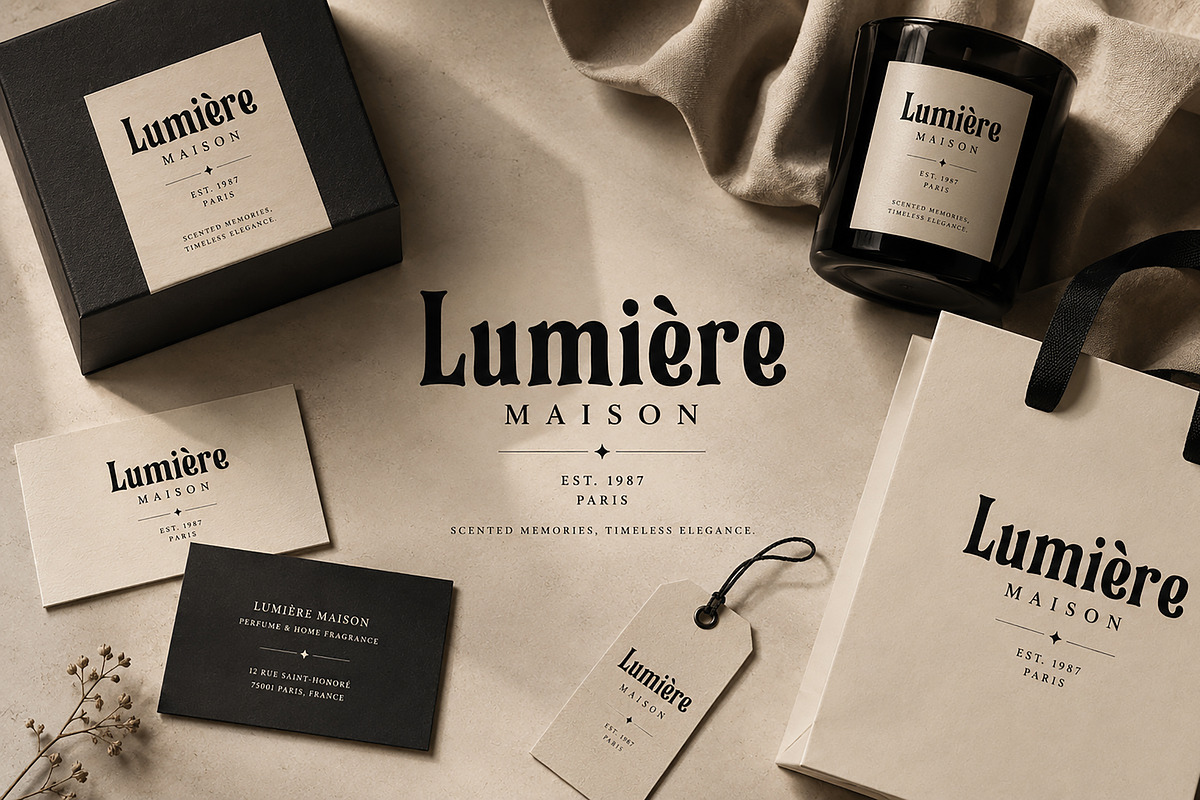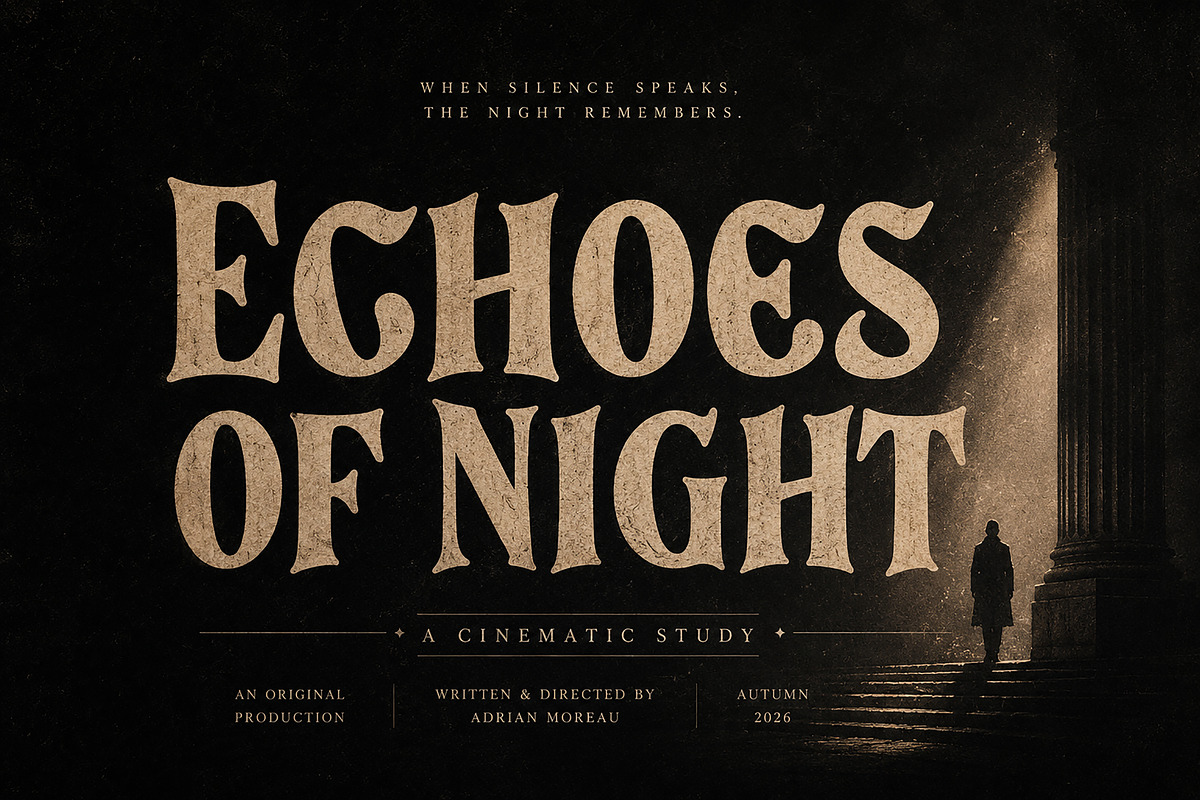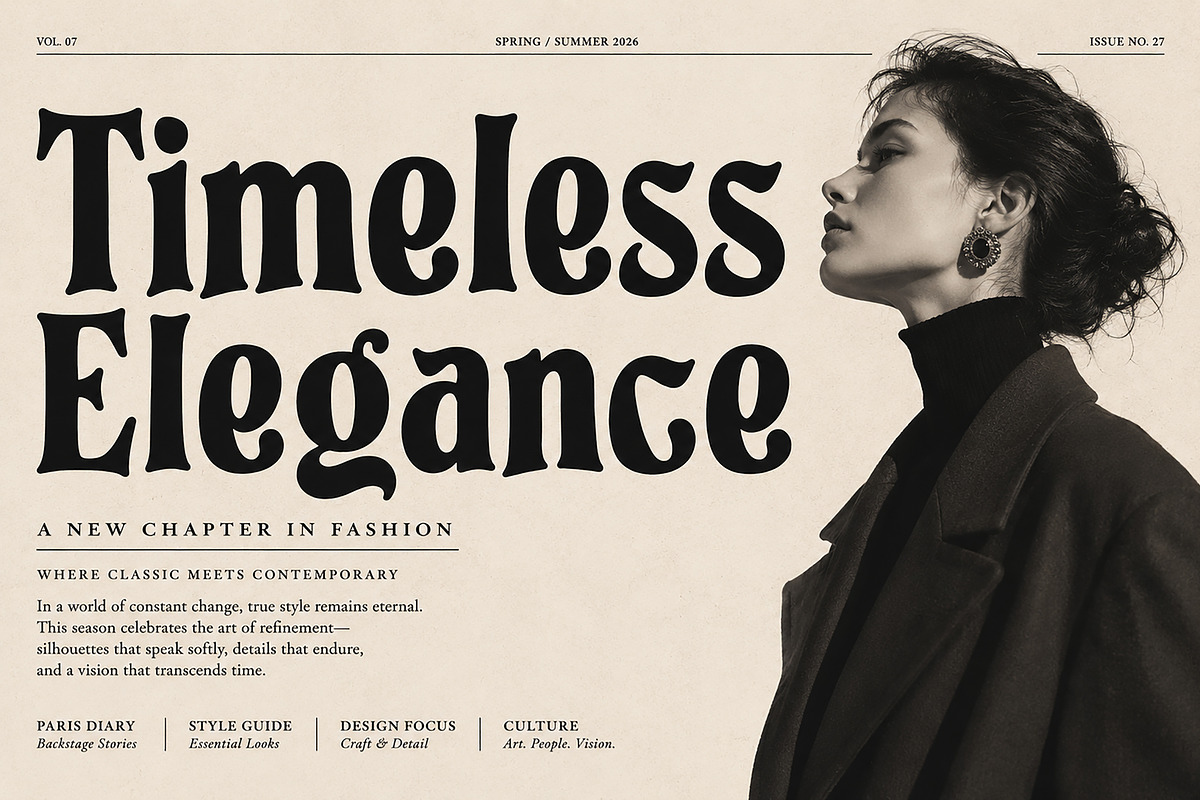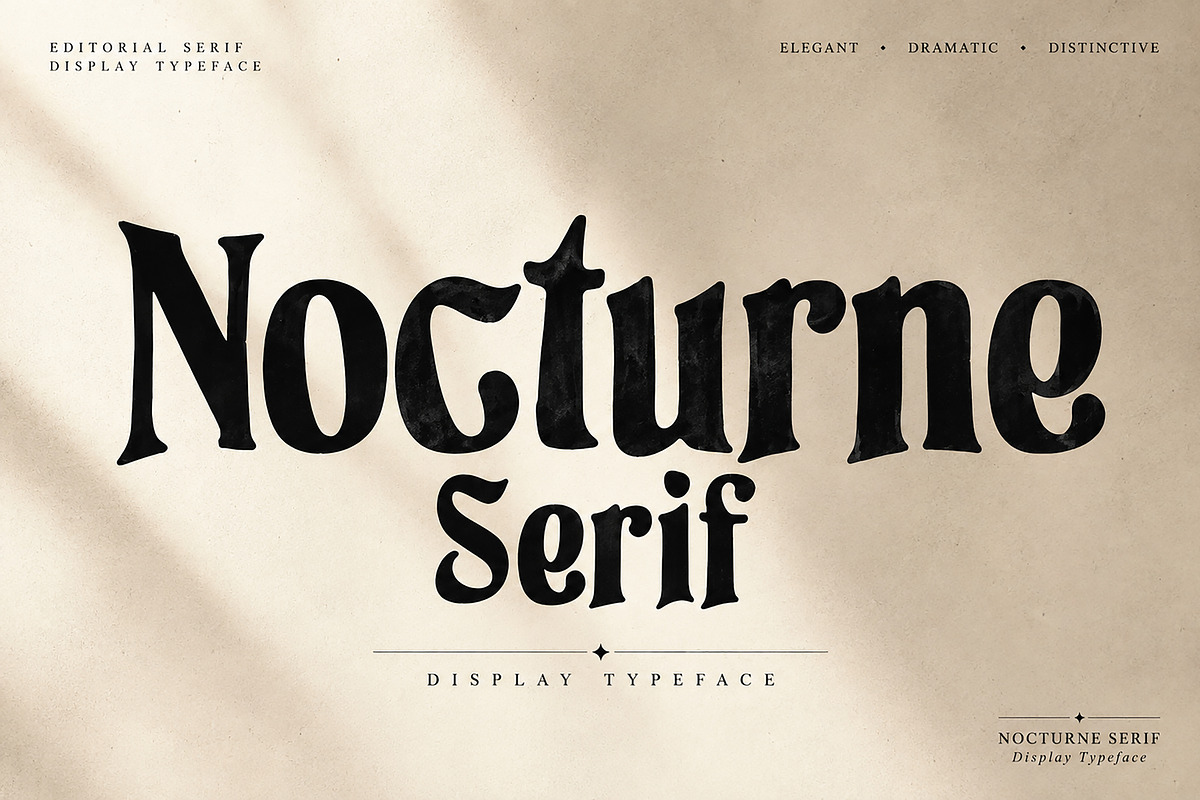
Nocturne Serif
Nocturne Serif is a distinctive display serif typeface designed to bring an elegant, dramatic, and sophisticated character to your designs. Its expressive letterforms combine a classic editorial feeling with a bold vintage-inspired personality, making it ideal for projects that need a strong visual presence.
Perfect for editorial layouts, fashion branding, luxury logos, posters, book covers, album artwork, packaging, invitations, magazines, and creative advertising, Nocturne Serif adds a refined and memorable look to headlines and display typography.
Whether you're creating a sophisticated brand identity or a dramatic poster, Nocturne Serif is designed to make your typography stand out.
Luxury Branding
Fashion & Editorial Design
Logo & Brand Identity
Magazine Covers
Posters & Advertising
Album Artwork
Invitations & Stationery
Boutique & Lifestyle Branding
Restaurant & Hotel Branding
Creative Headlines
Editorial Typography